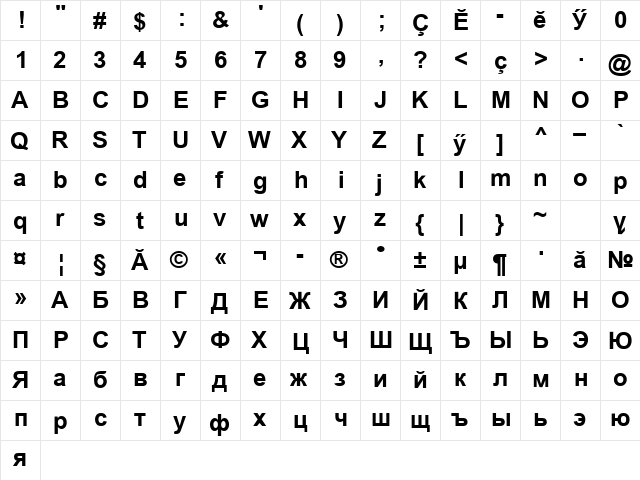
Arial Cyr Chuv CNP Bold
Design Context for Arial Cyr Chuv CNP Typeface
Arial Cyr Chuv CNP offers clean, dependable letterforms without strong stylistic allegiance, making it a practical choice for designers who need flexibility. Its bold stroke weight gives it real presence on the page.